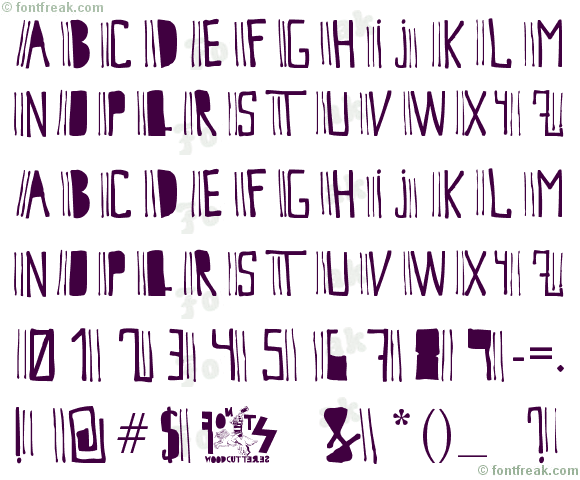
Cutre Glam
About Cutre Glam
Cutre Glam is a distinctive display typeface designed by woodcutter Manero, showcasing a unique blend of creativity and boldness. This font falls into the decorative category, characterized by its playful and artistic flair. The strokes exhibit varying weights, giving the letters an uneven yet intentional appearance that captures attention. The contrast between thick and thin lines adds depth and dimension, while the spacing between characters is carefully designed to maintain readability without sacrificing style. Decorative elements, such as the irregular edges and quirky embellishments, enhance its overall charm, making it a visual treat for any design project.
This font is ideal for a variety of creative applications, particularly where a touch of whimsy and personality is desired. Wedding invitations can benefit from its artistic nature, adding a bespoke feel to the occasion. Movie posters will stand out with Cutre Glam’s bold aesthetic, making titles memorable and eye-catching. Restaurant menus can also utilize this font to create an inviting atmosphere, suggesting a fun and unique dining experience. Additionally, it serves well for promotional materials geared towards younger audiences or products, capturing the essence of trendiness and modernity.
Targeting graphic designers, small business owners, and content creators, Cutre Glam invites users to explore its potential in various mediums. The font is especially appealing for those seeking to make a statement without overwhelming their designs.
What sets the Cutre Glam font apart is its ability to convey a sense of fun and creativity while remaining versatile across different contexts. With a freeware license, it’s accessible for everyone looking to enhance their projects. Experience the charm of this unique typeface with a Cutre Glam font free download and let your designs shine with personality.